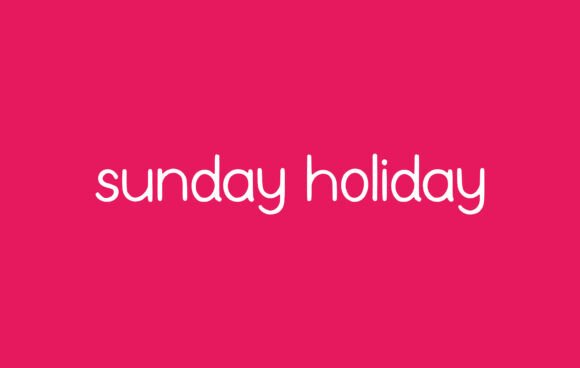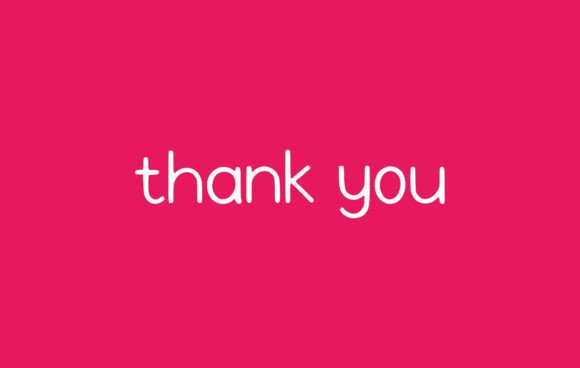
Introducing Busy Mom Font: The Perfect Handwritten Font for Creative Projects
Are you a designer, crafter, or DIY enthusiast looking for a unique and authentic handwritten font to elevate your creative projects? Look no further than Busy Mom Font! This beautifully designed font is perfect for adding a romantic touch to your designs, and its legibility makes it ideal for use as both title and body text.
What Makes Busy Mom Font So Special?
Busy Mom Font is an expertly crafted handwritten font that exudes a sense of warmth and personality. Its authentic, human touch makes it perfect for a wide range of design applications, from magazine headlines and social media graphics to branding, wedding invitations, and greeting cards. The font’s romantic undertones add a touch of elegance and sophistication, making it ideal for projects that require a bit of whimsy and charm.
Key Features of Busy Mom Font
- Authentic Handwritten Style: Busy Mom Font is designed to mimic the look and feel of handwritten text, giving your designs a personal and unique touch.
- Romantic Touch: The font’s romantic undertones add a touch of elegance and sophistication to your designs.
- Legible and Versatile: Busy Mom Font is highly legible, making it perfect for use as both title and body text.
- Wide Range of Applications: This font is suitable for a wide range of design applications, including magazine headlines, social media graphics, branding, wedding invitations, greeting cards, and more.
Why Busy Mom Font Stands Out
In a world where digital fonts are a dime a dozen, Busy Mom Font stands out from the crowd. Its unique blend of authenticity, legibility, and romance makes it a true favorite among designers and crafters. Whether you’re looking to add a personal touch to your designs or simply want to create something truly special, Busy Mom Font is the perfect choice.
How to Use Busy Mom Font in Your Designs
Busy Mom Font is incredibly versatile and can be used in a wide range of design applications. Here are just a few ideas to get you started:
- Magazine Headlines: Use Busy Mom Font to create eye-catching headlines for your magazine or blog.
- Social Media Graphics: Add a personal touch to your social media graphics with Busy Mom Font.
- Branding: Use Busy Mom Font to create a unique and memorable brand identity.
- Wedding Invitations: Add a touch of romance and elegance to your wedding invitations with Busy Mom Font.
- Greeting Cards: Use Busy Mom Font to create beautiful and personalized greeting cards.
Tips and Tricks for Getting the Most Out of Busy Mom Font
Here are a few tips and tricks to help you get the most out of Busy Mom Font:
- Pair with Other Fonts: Busy Mom Font pairs beautifully with other fonts, so don’t be afraid to get creative and try out different combinations.
- Use for Both Title and Body Text: Busy Mom Font is highly legible, making it perfect for use as both title and body text.
In conclusion, Busy Mom Font is a truly unique and special font that is perfect for designers, crafters, and DIY enthusiasts looking to add a personal touch to their creative projects. Its authentic handwritten style, romantic undertones, and legibility make it ideal for a wide range of design applications. Whether you’re looking to create something truly special or simply want to add a bit of whimsy and charm to your designs, Busy Mom Font is the perfect choice.